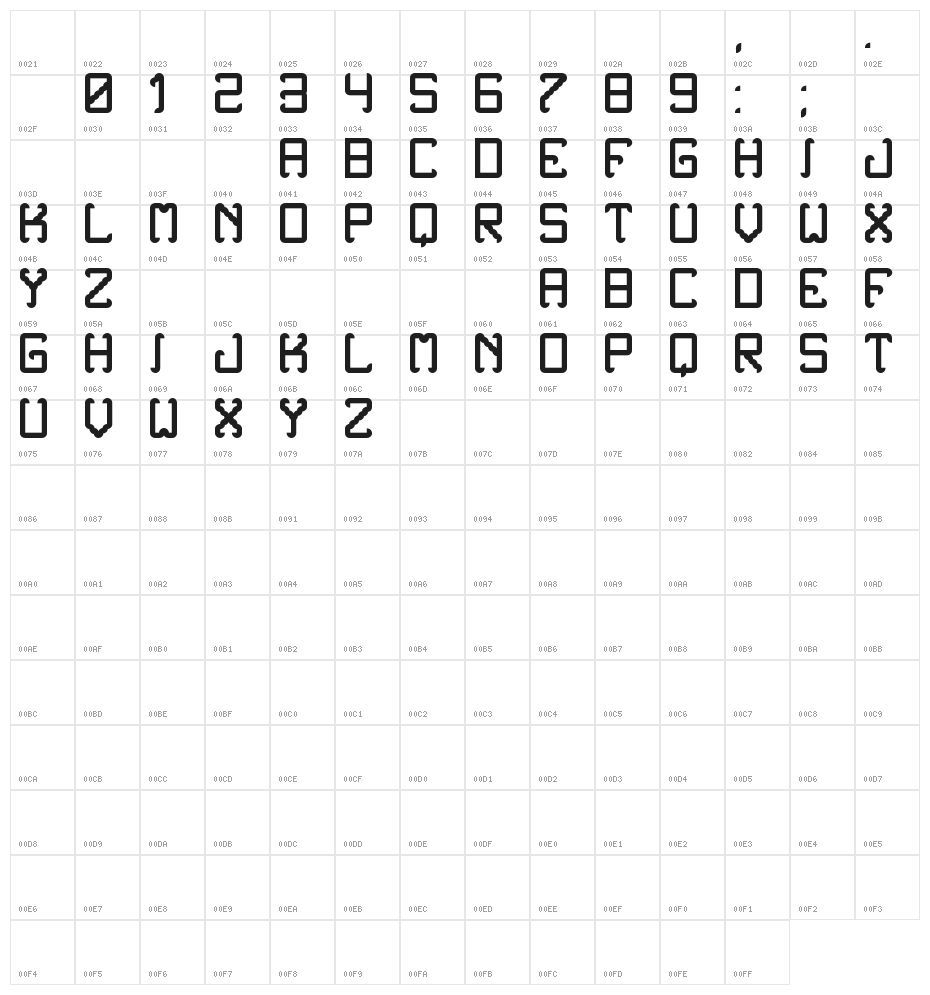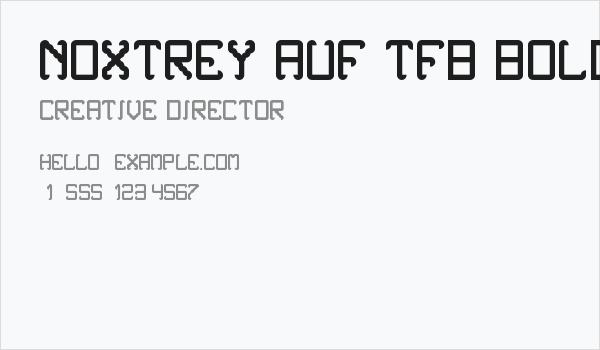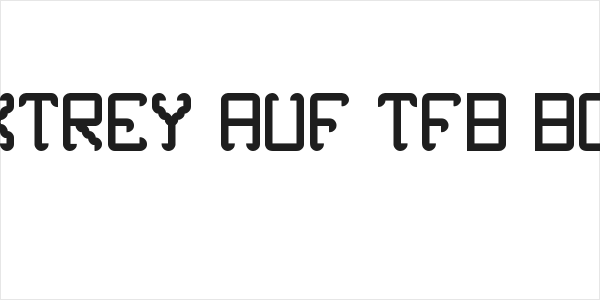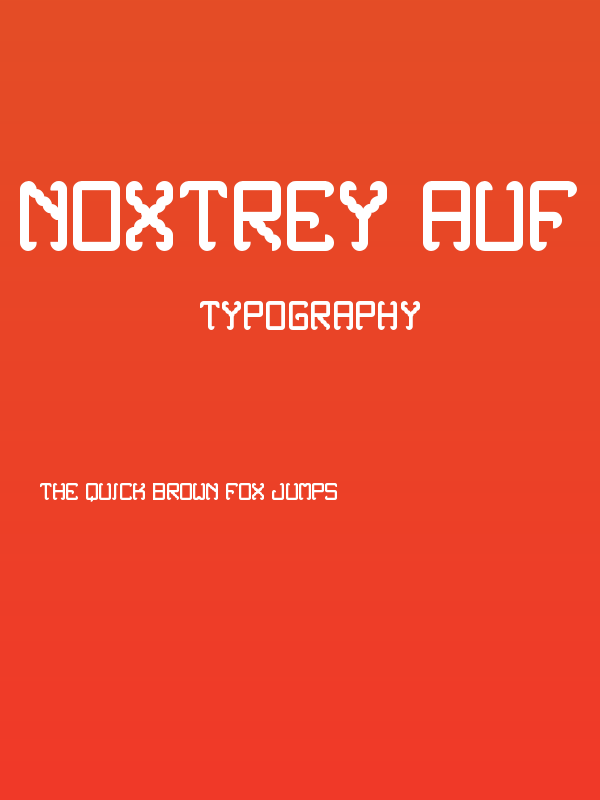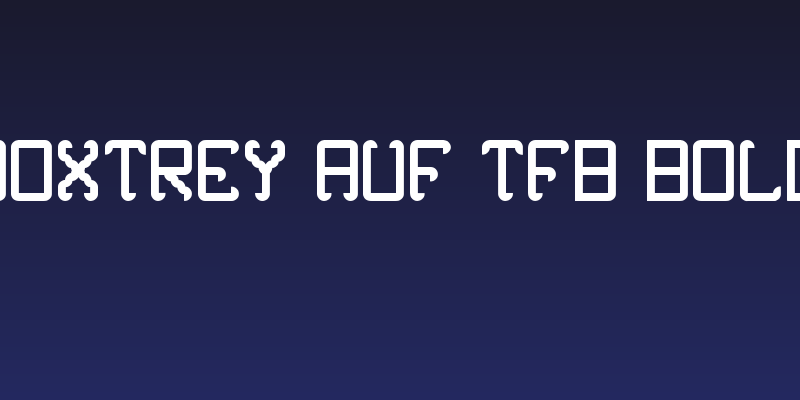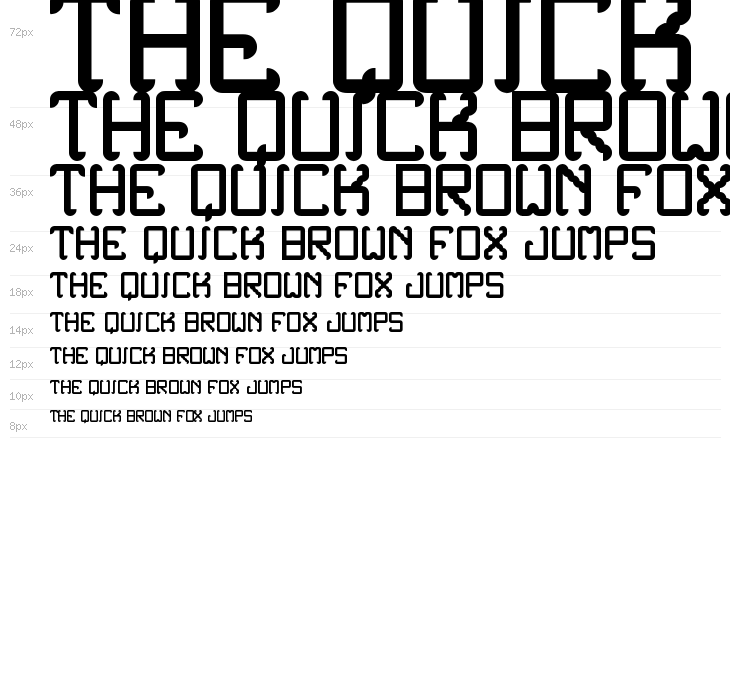
Noxtrey Auf tfb bold Font
Noxtrey Auf tfb bold Description
This font features a bold and modern design with a unique geometric structure. The characters are constructed with a consistent stroke width, giving it a monospaced appearance. The rounded corners and smooth curves add a touch of softness to the otherwise robust and industrial feel. The uppercase and lowercase letters maintain a uniform height, enhancing readability and creating a cohesive look. The numerals and special characters follow the same design principles, ensuring a harmonious overall style. This font is ideal for projects that require a contemporary and edgy aesthetic.